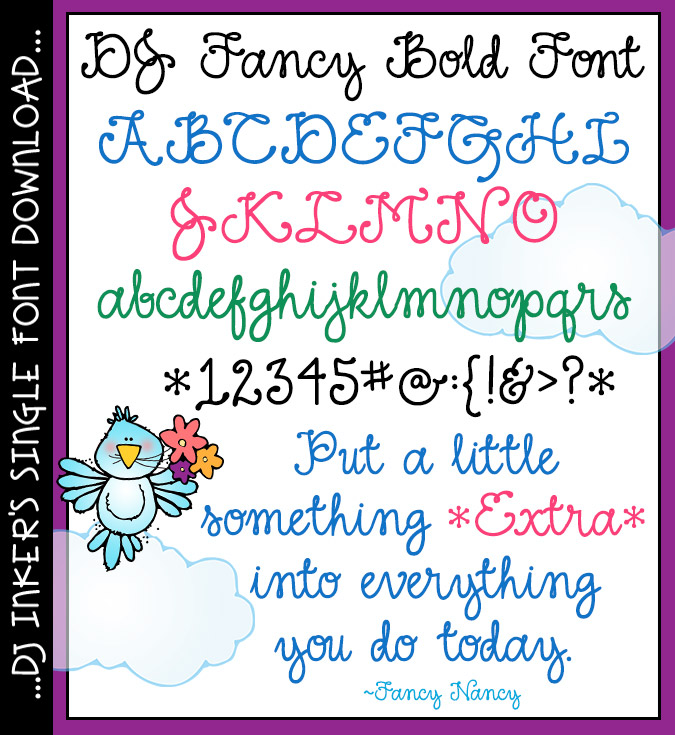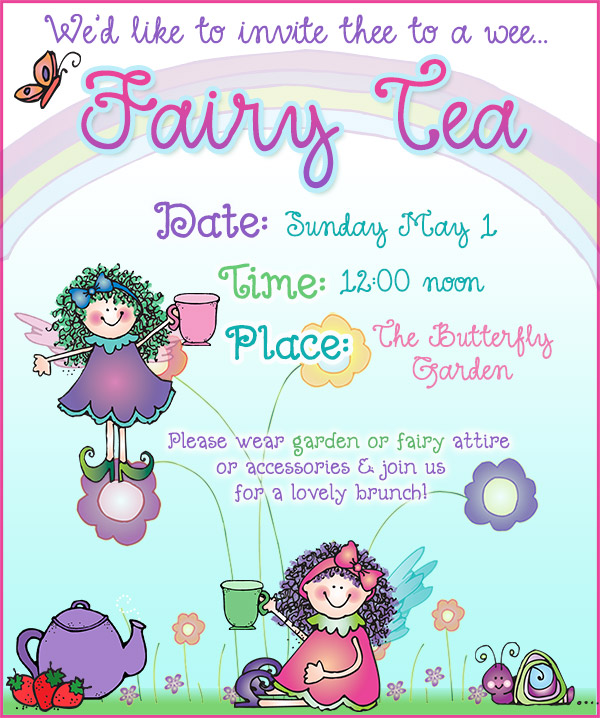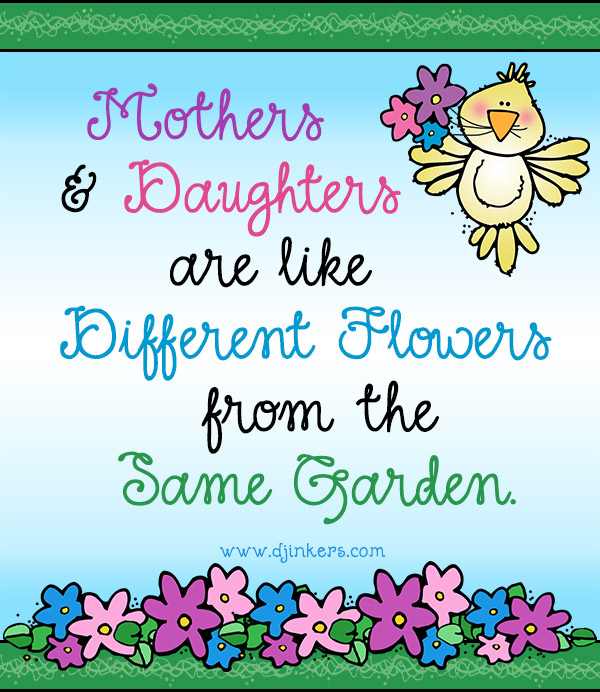
DJ Fancy Bold Font Download
Put a little something extra into everything you do today! This bold &
fancy lettering will be just the thing to make your words pop off the page
with style. Perfect for special events, certificates, greeting
cards and letters, Mother's Day, anniversaries, weddings and more.
This cursive script font comes in open type format (.otf) and includes
Hand drawn lettering by Dianne J Hook © DJ Inkers.